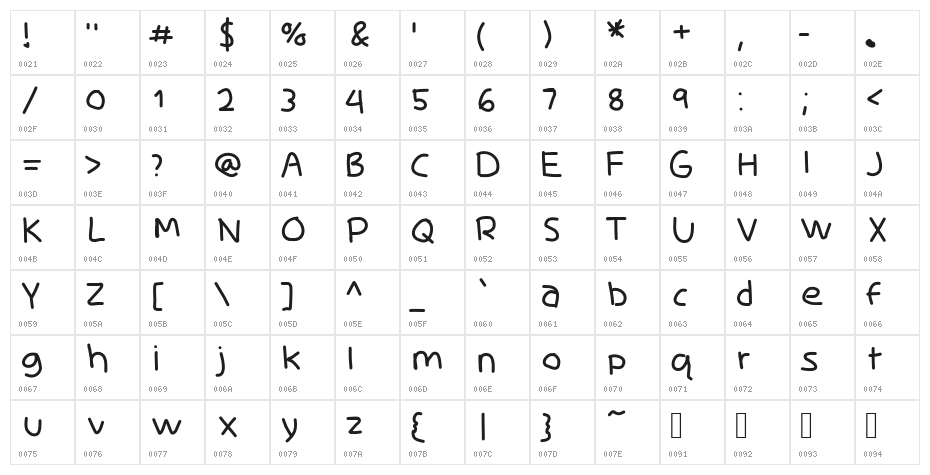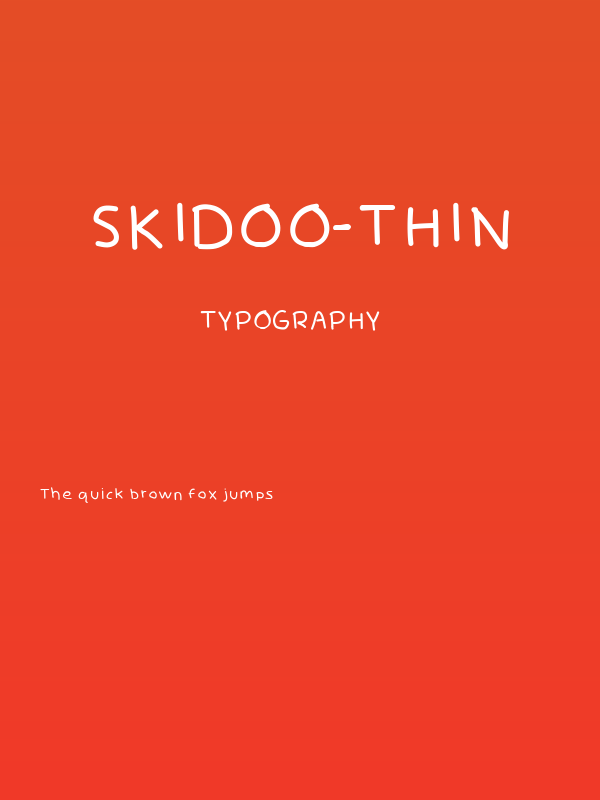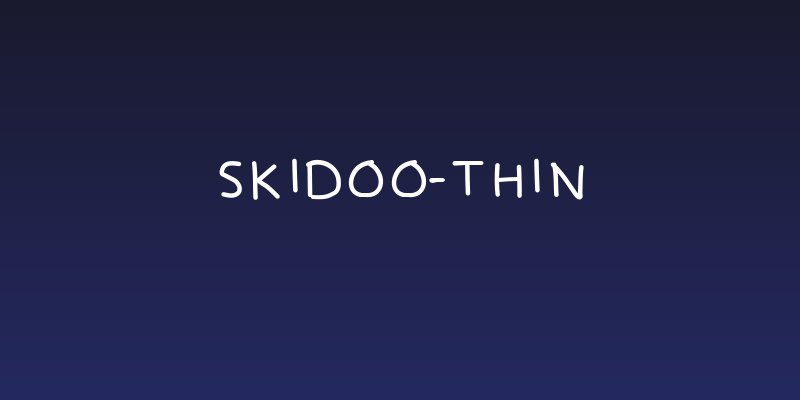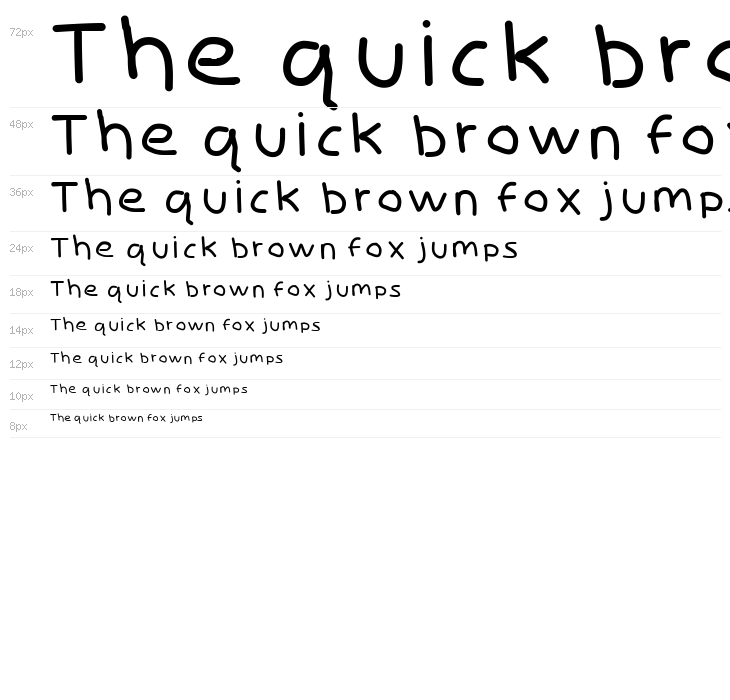
Skidoo-Thin Font
Skidoo-Thin Description
This font features a playful and casual handwritten style, characterized by its rounded and slightly irregular letterforms. The strokes are consistent in thickness, giving it a uniform appearance while maintaining a friendly and approachable vibe. The characters are well-spaced, ensuring readability even at smaller sizes. The font includes a full set of uppercase and lowercase letters, numbers, and a variety of punctuation marks and special characters. Its informal style makes it suitable for projects that aim to convey warmth and personality.
Overall StyleCasual
Use CaseHeadlines, Informal text, Branding
Proposed ProjectsIdeal for children's books, casual invitations, greeting cards, and playful branding.